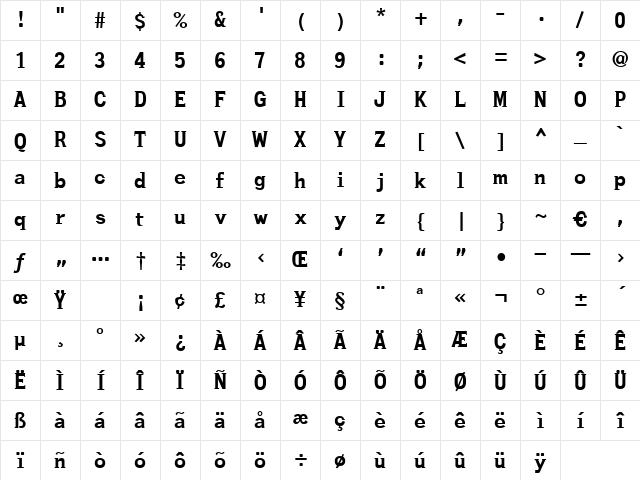
Complete Stavanger Regular glyph index. Displaying only characters natively supported by Stavanger Regular font.
Stavanger is a composed and adaptable typeface that performs quietly and consistently across a wide range of design contexts.